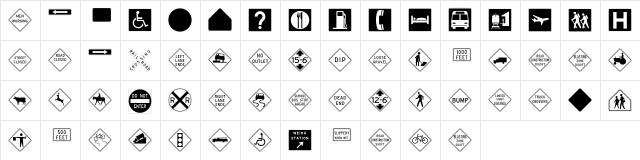
Interstate Pi Three Regular
Design Context for Interstate Pi Three Typeface
Interstate Pi Three takes a measured approach to typography — its balanced proportions and neutral character make it a reliable workhorse for both digital and print work.